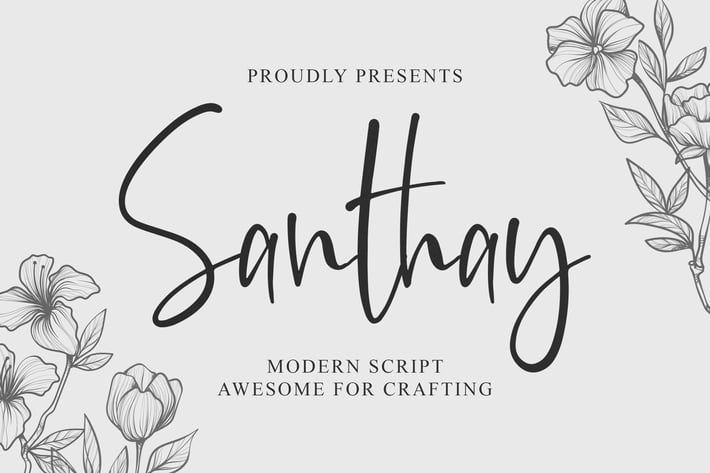
Santhay - Modern Script Font
Introducing of our new product the name is Santhay Modern Script Font. Santhay inspired by modern calligraphy style this font is a fun theme very good for signature, poster, fashion, wedding, branding etc
MULTILINGUAL ACCENT :
ŽžŠŒšŸÀÁÂÃÄÅÆÇÈÉÊËÌÍÎÏÐŁÑÒÓÔÕÖØÙÚÛÜÝßàáâãäåæçèéêëìíîïłñòóôõöøùúûüýÿ